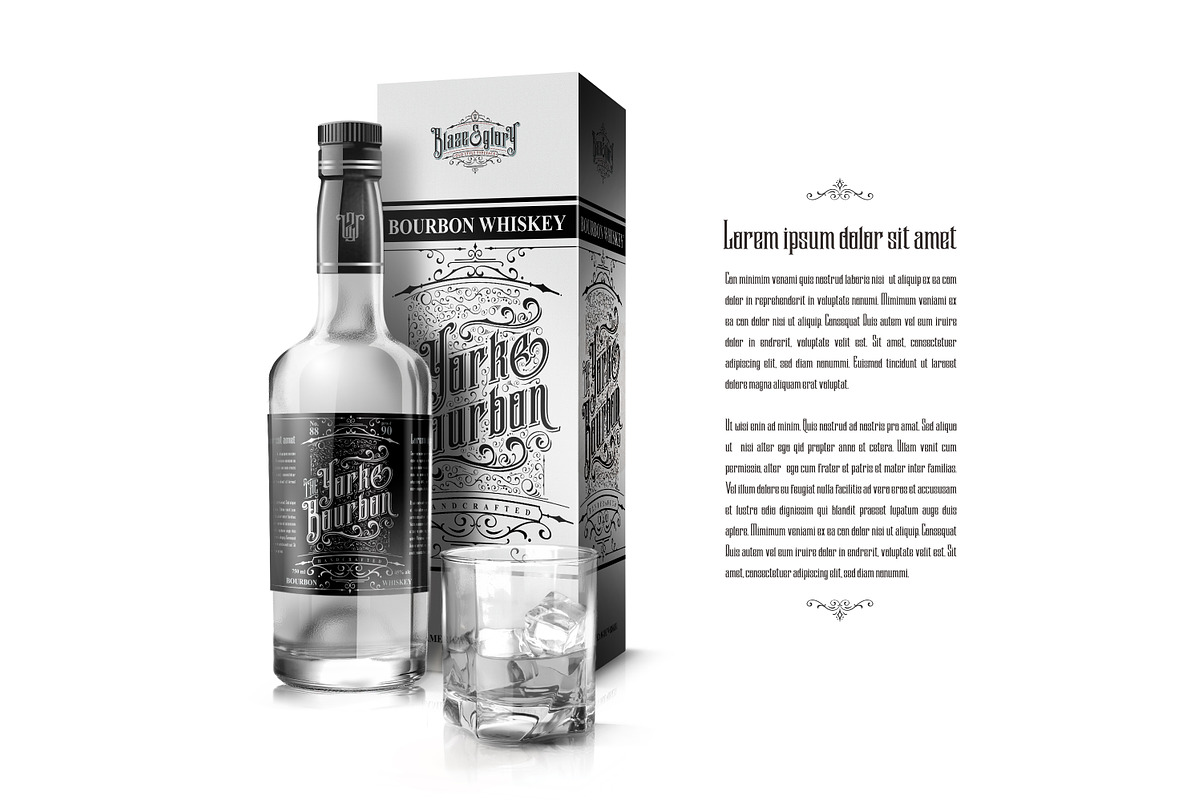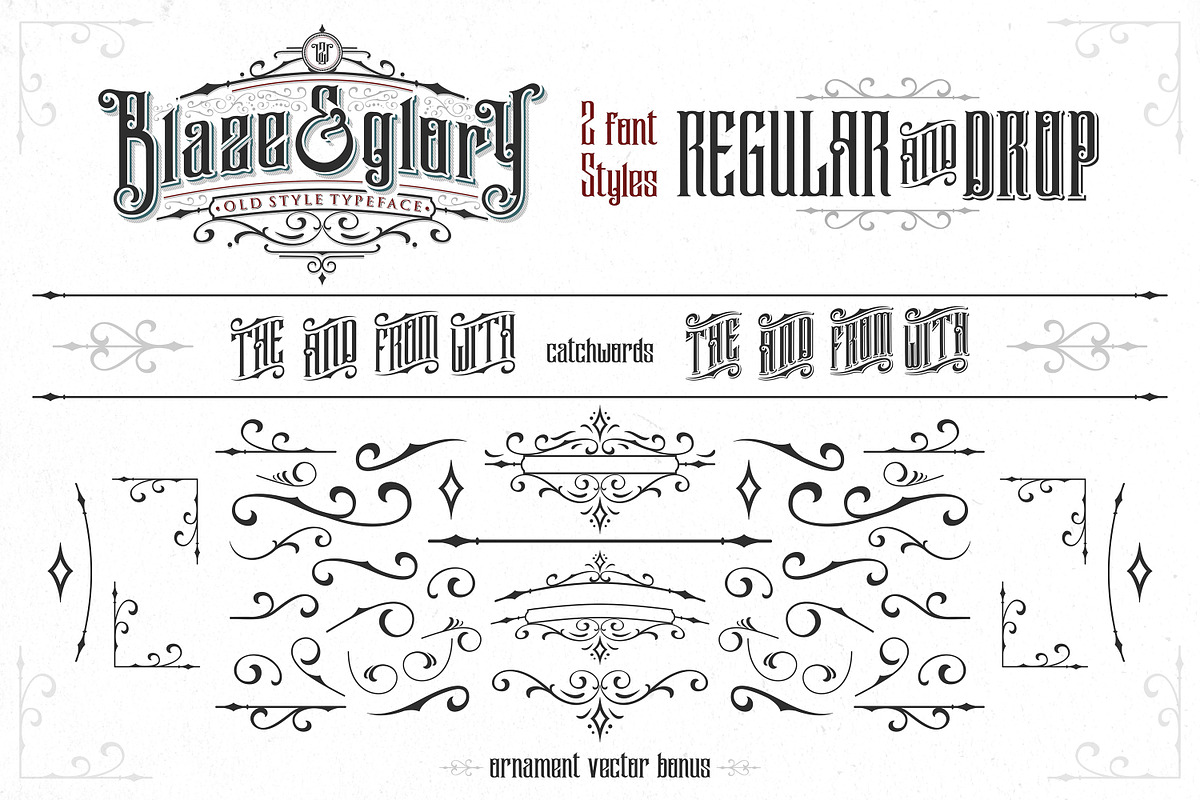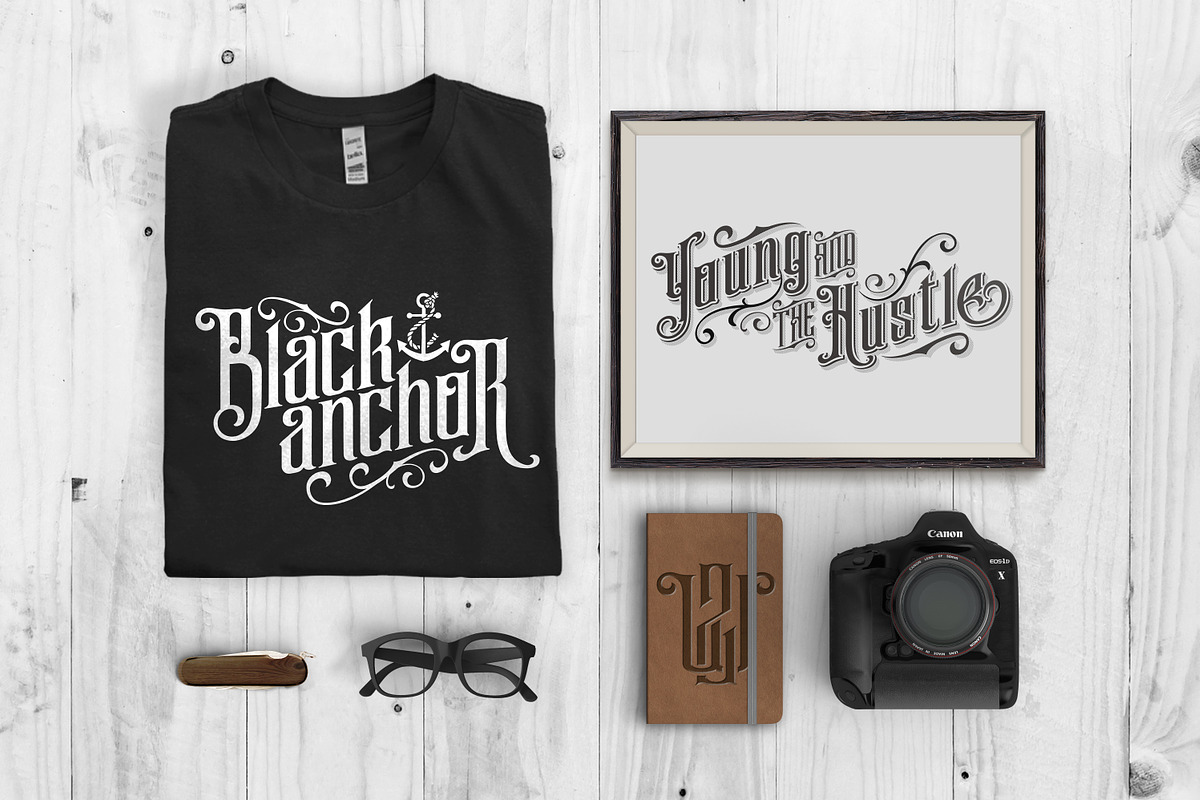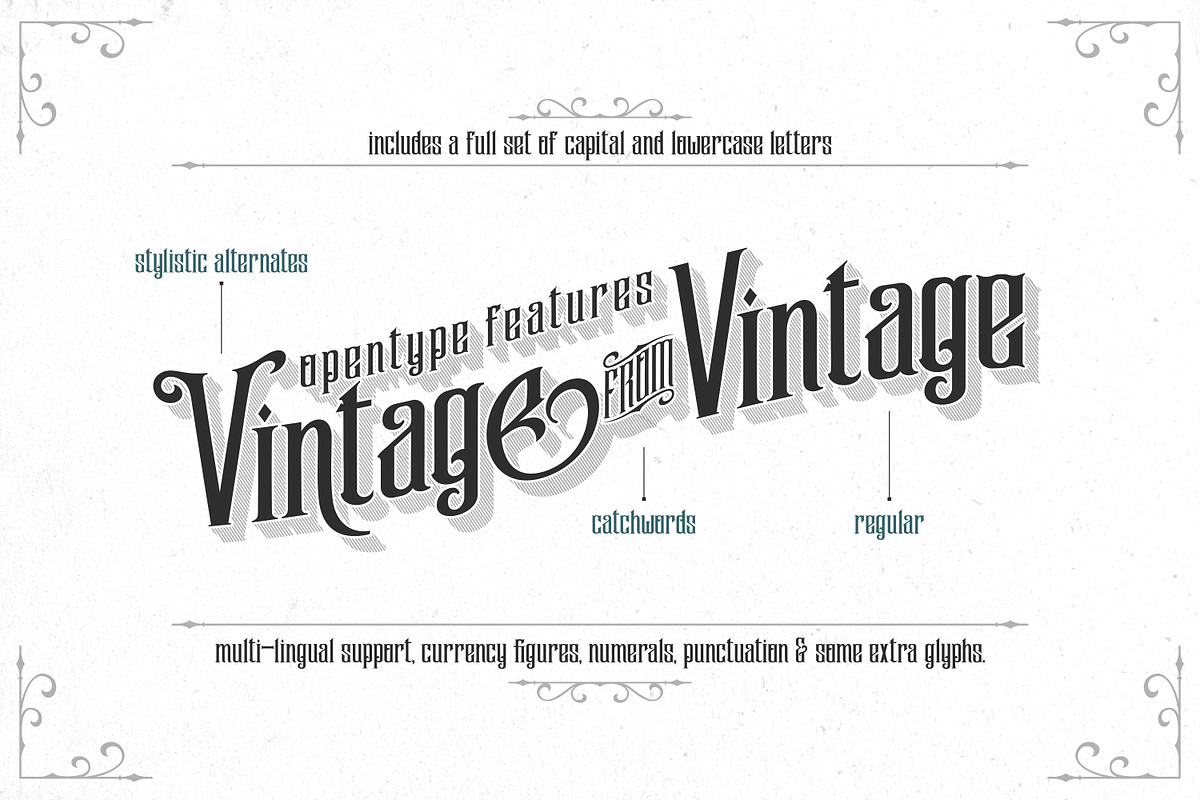
Blaze & Glory Typeface + Extras
Blaze & Glory Typeface + Extras by Zerowork Studio is a font selected for branding, posters, packaging, typography.
Blaze & Glory Typeface + Extras by Zerowork Studio fits naturally into Branding, posters, packaging, typography.